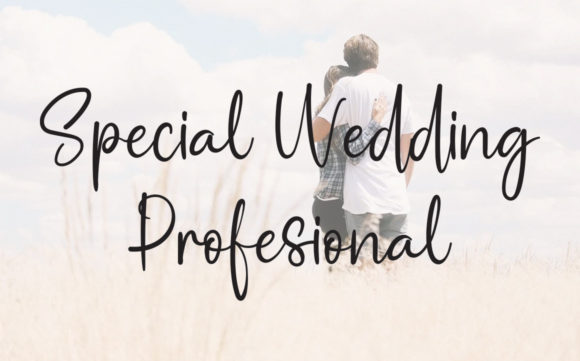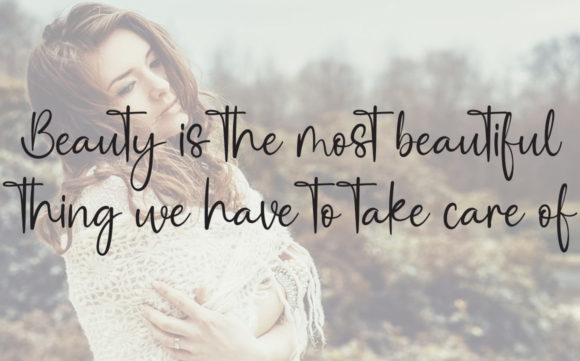
Billabong Font
db-ku.com - Script & Handwritten -- Billabong is a beautiful and flowing handwritten font. Use it for wall displays, wedding invitations, social media post logos,